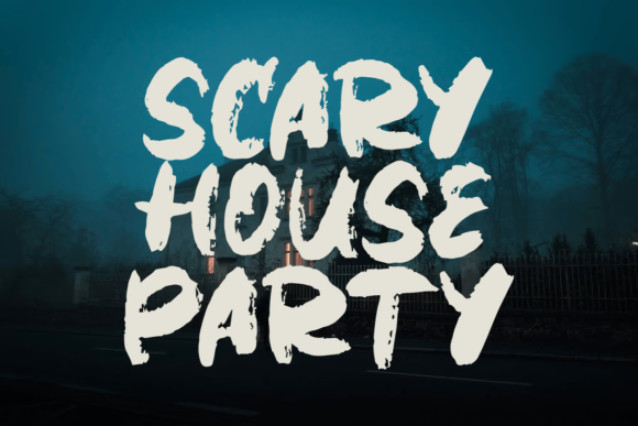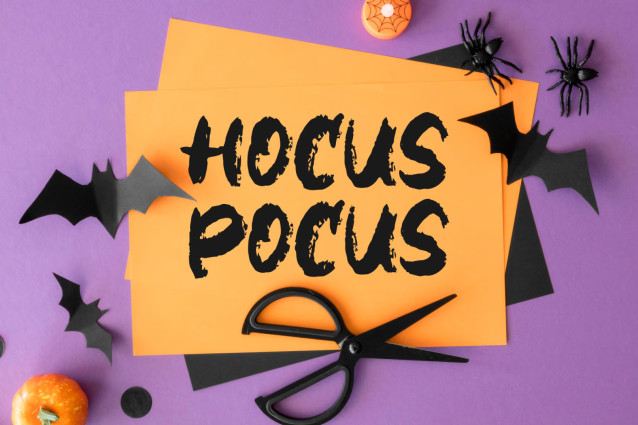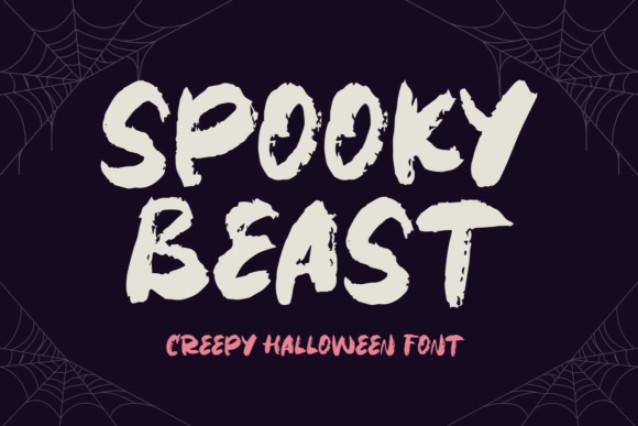
Spooky Beast Font
Introducing Spooky Beast, the quintessential Halloween font that breathes life into your terrifying Halloween soirees. Perfect for invitations that leave a lasting chill or web graphics that send hair-raising shivers, this creepy yet enchanting typeface is also an ideal choice for any Halloween décor you have in mind. Easy to install, Spooky Beast makes all your eerie Halloween dreams come to life!